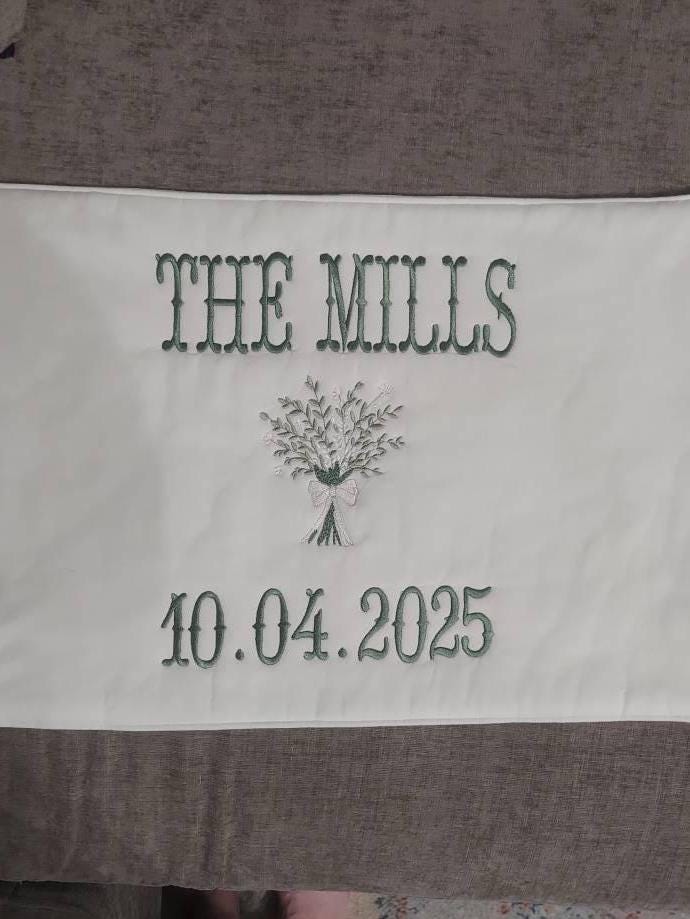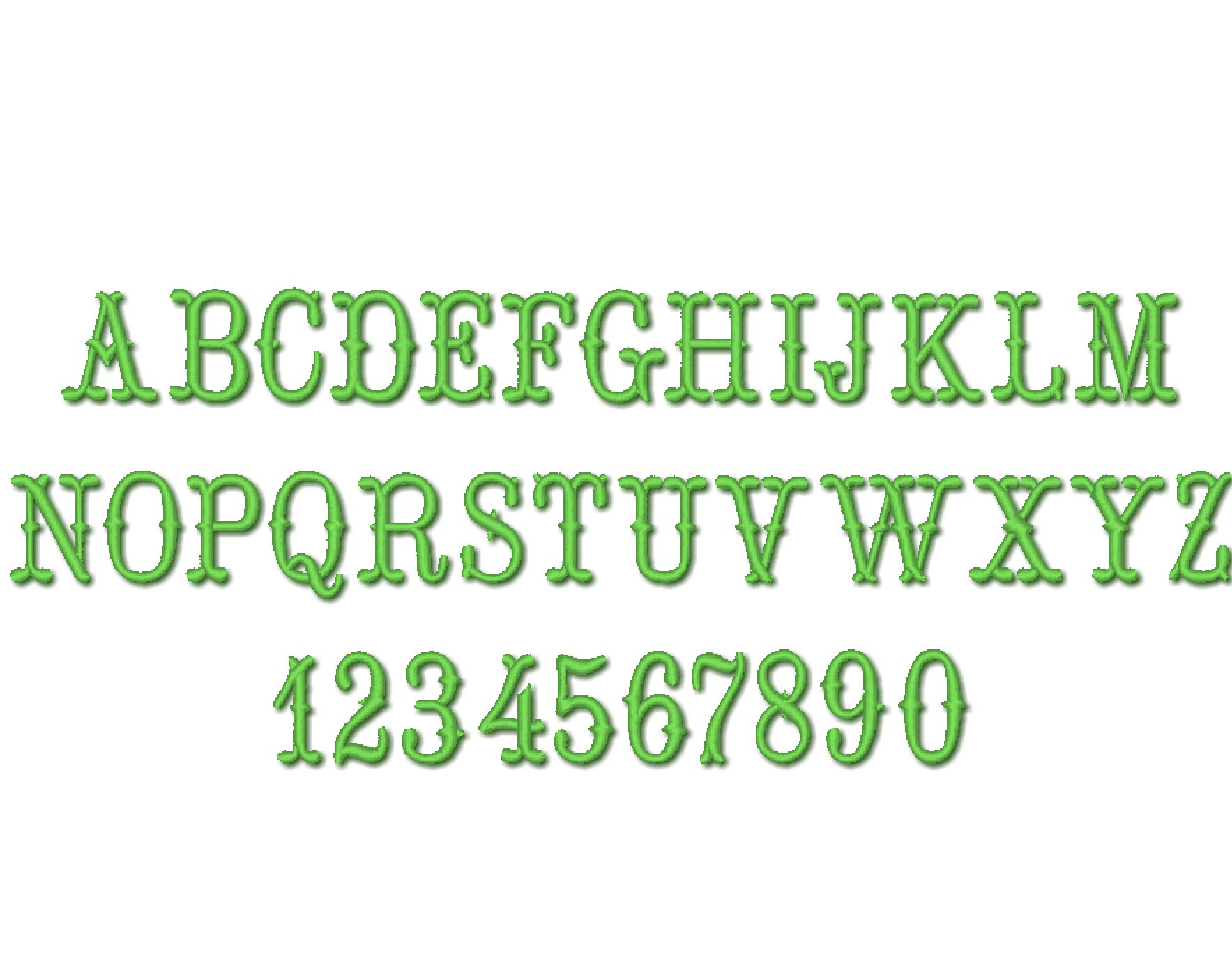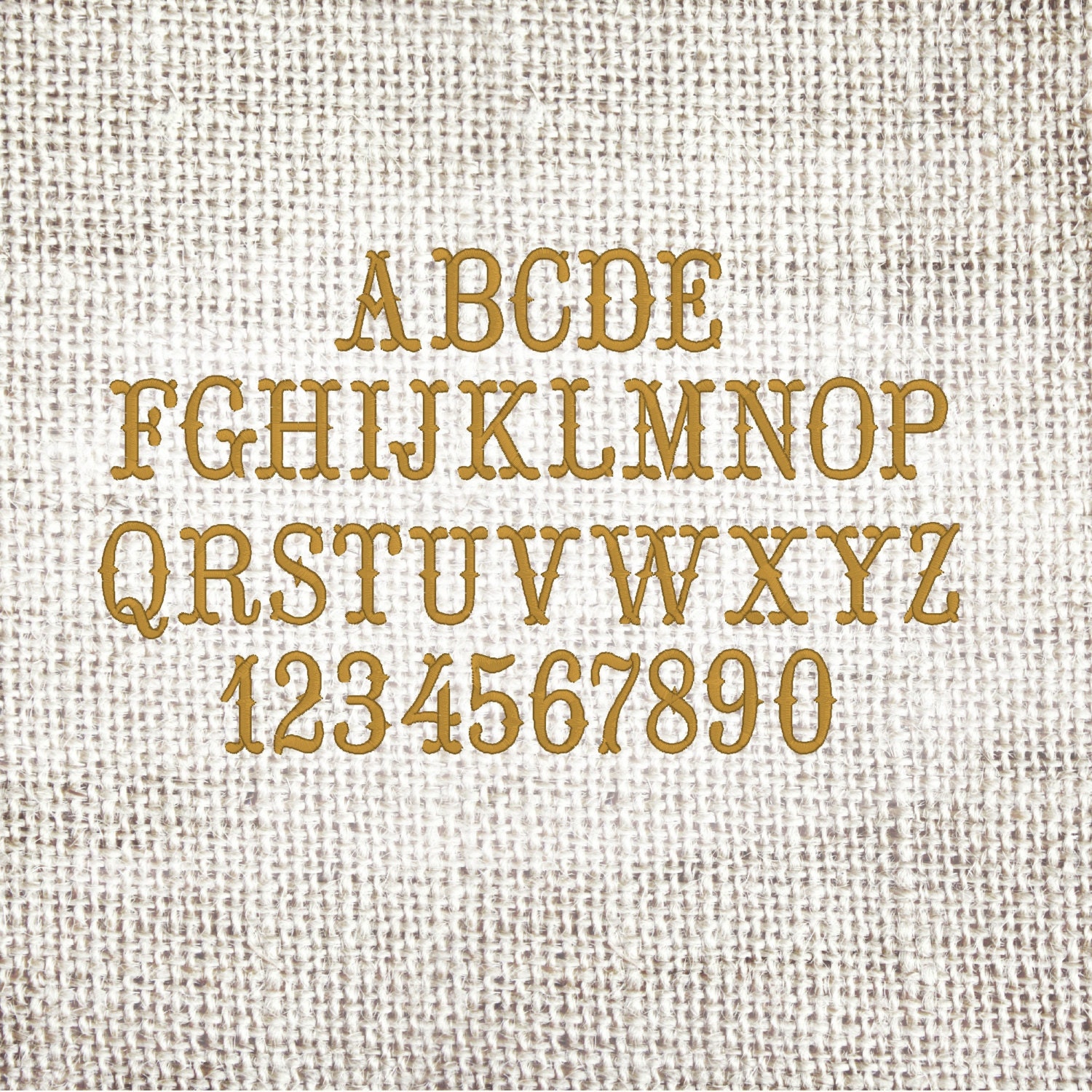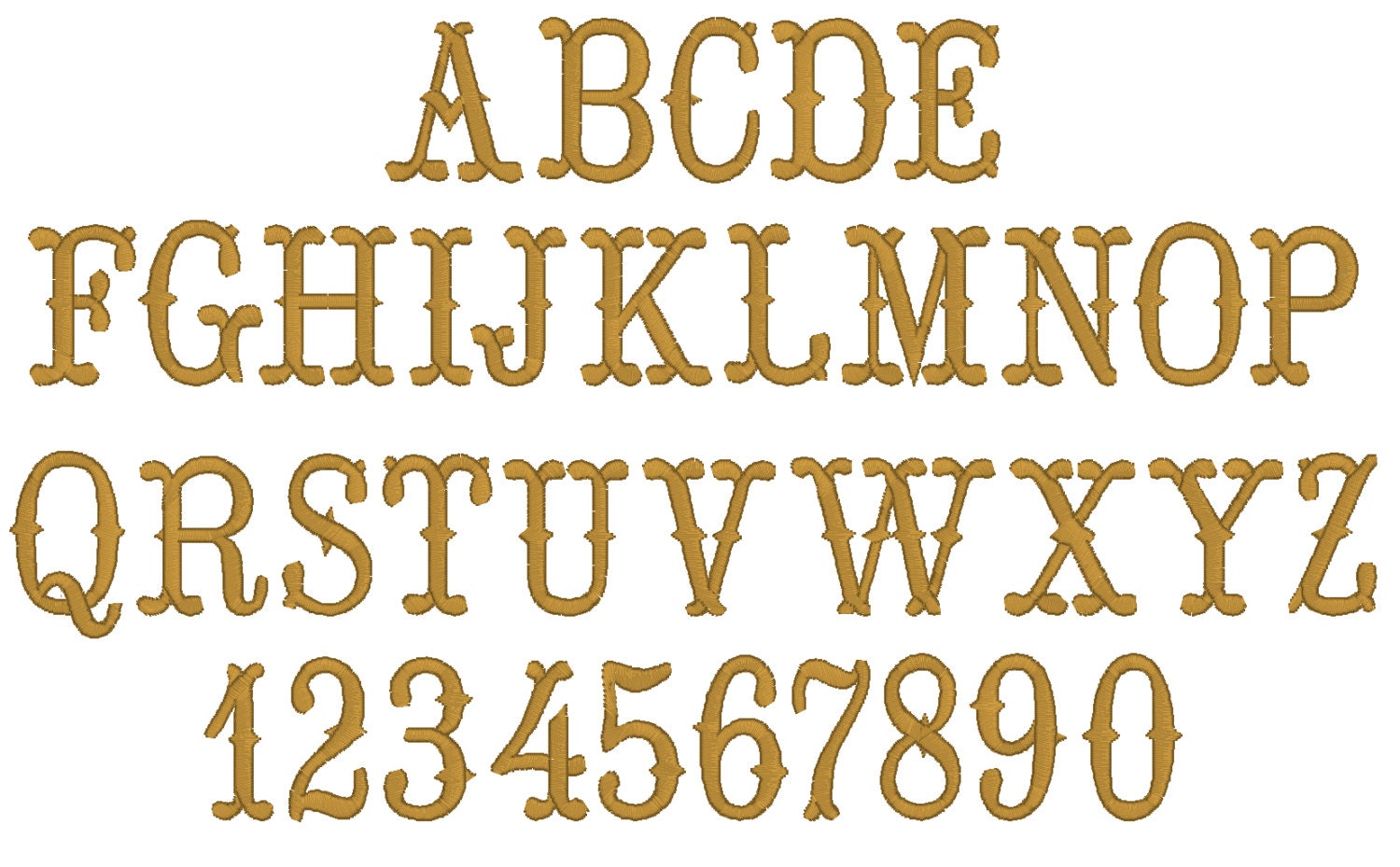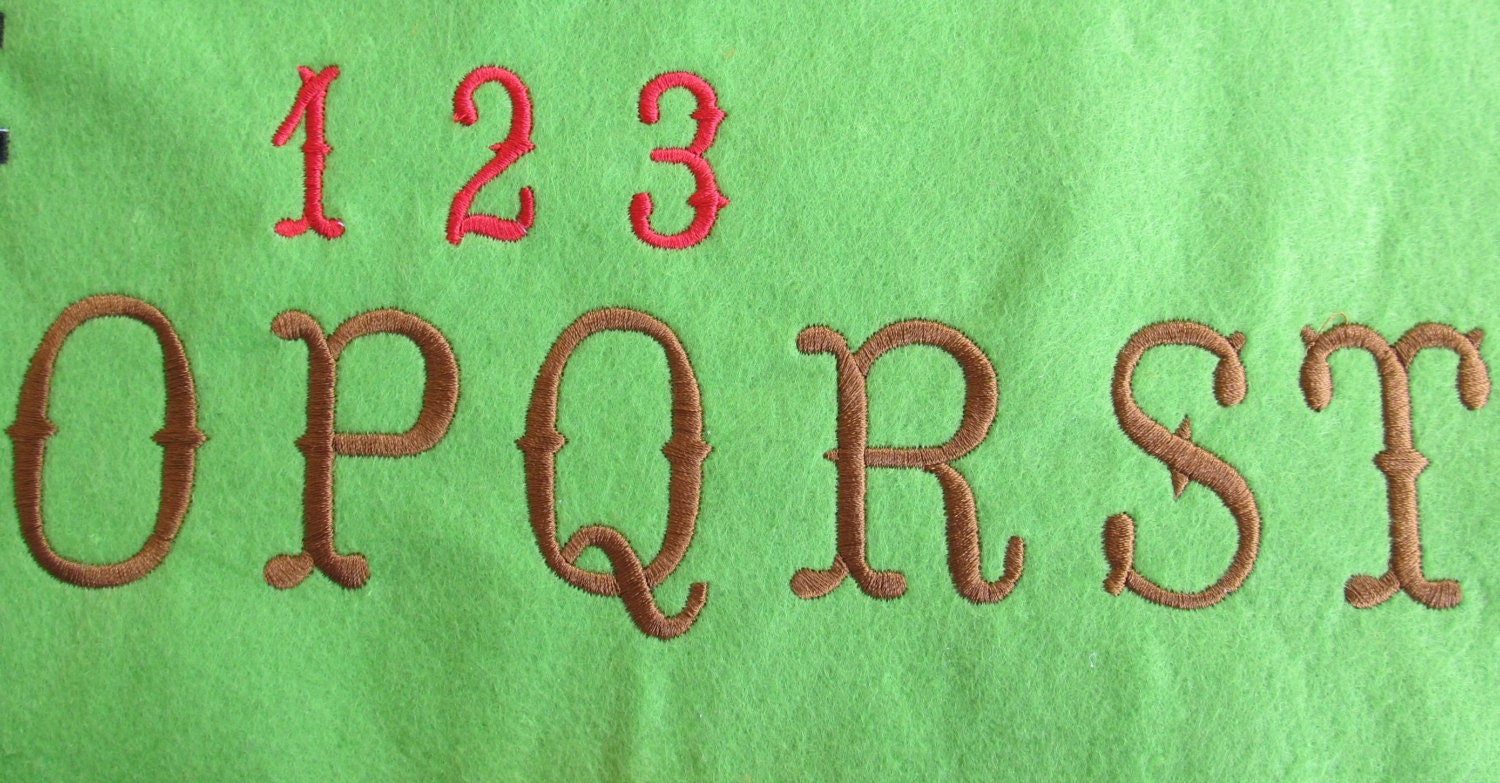
Western Cowboy Cute Mini FONT satin stitch fishtail alphabet machine embroidery designs letters numbers mini sizes kids baby name monogram
Uppercase letters and numbers